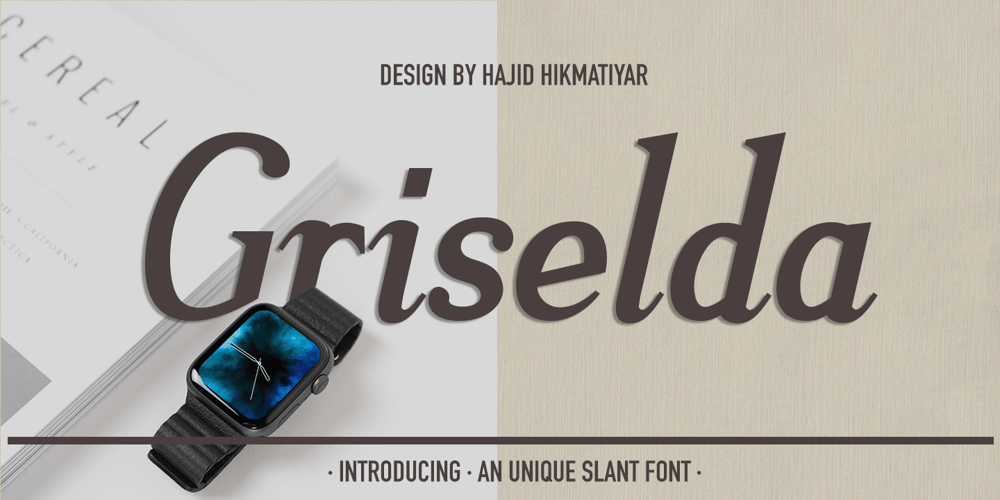
Griselda
Griselda font
Griselda Font Family was designed by Hajid Hikmatiyar and published by Hikhcreative. Griselda contains 1 styles and family package options. Griselda is a elegant italic slant font, which designed by Hajid Hikmatiyar. It is designed to blend classic delicacy with modern rhythm of glyphs to suit any design works. And, the rhythmic skeletons of italic styles enhance the designer’s palette. With its italic glyphs, the control of breathing layout is a privilege that designers can have. Please let me know if you have any problems, suggestions or questions!